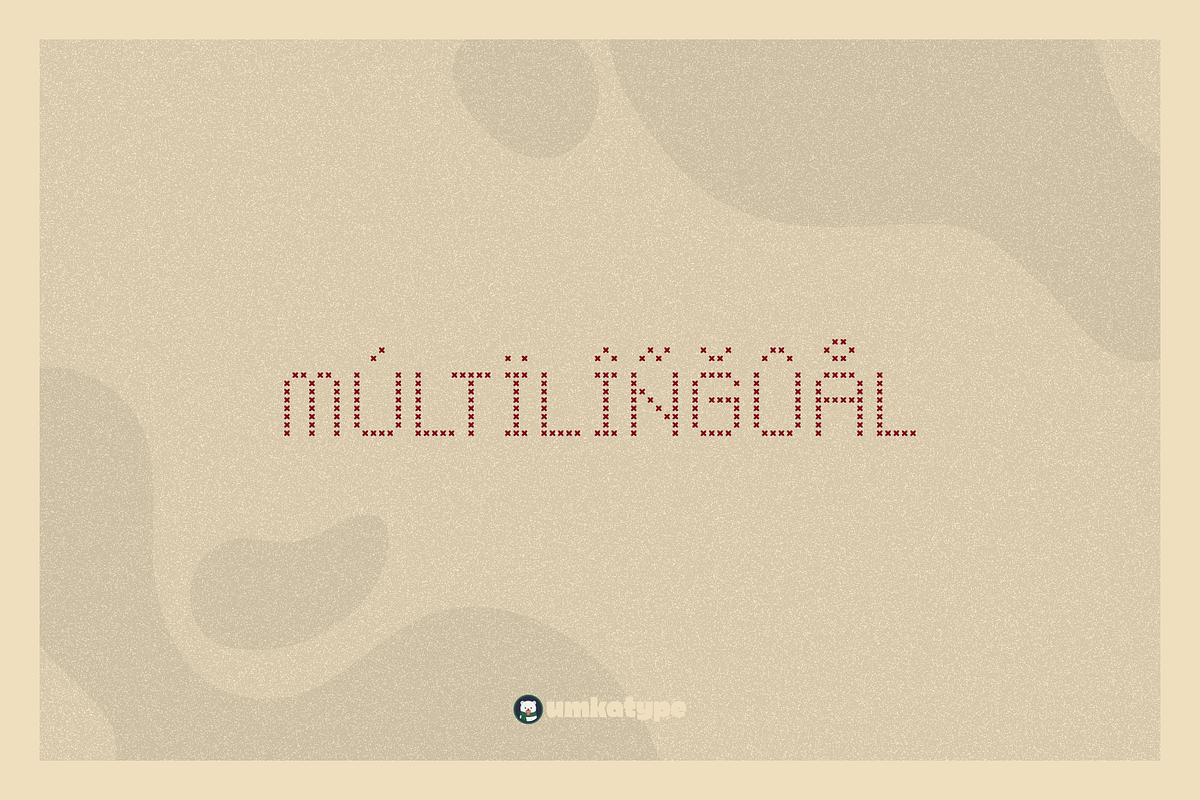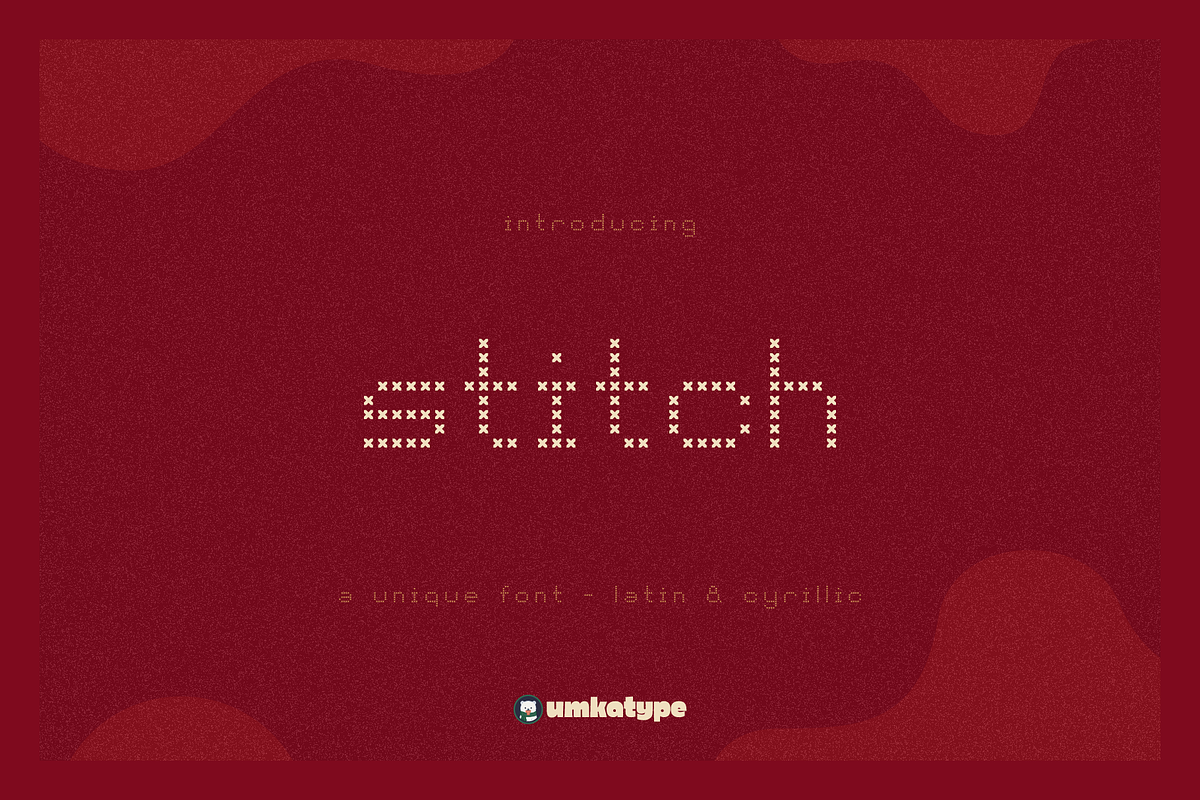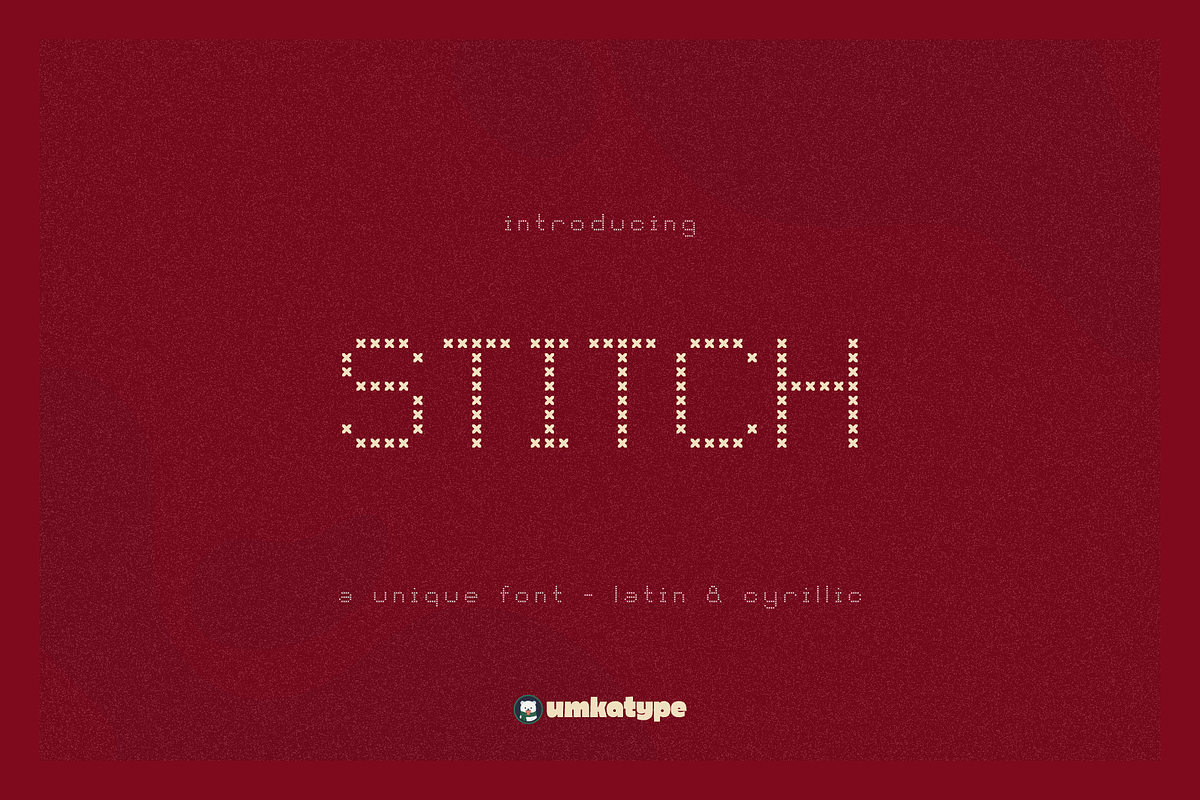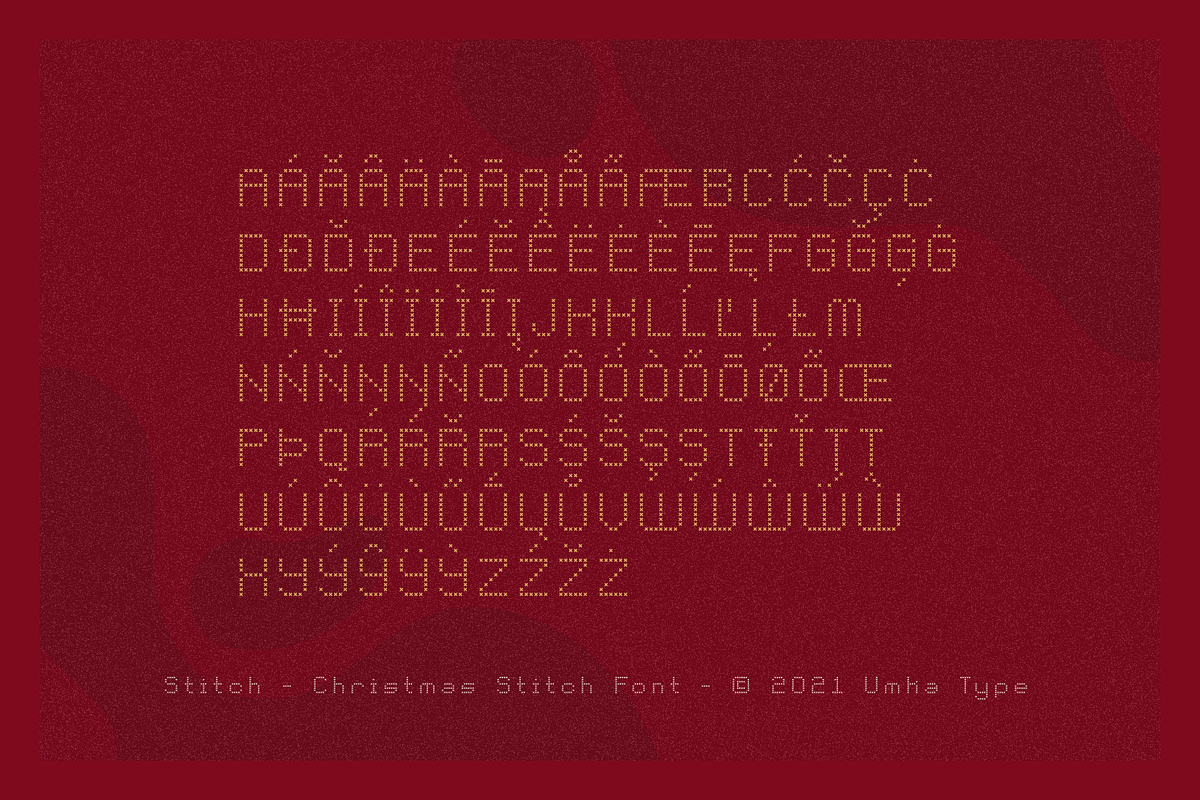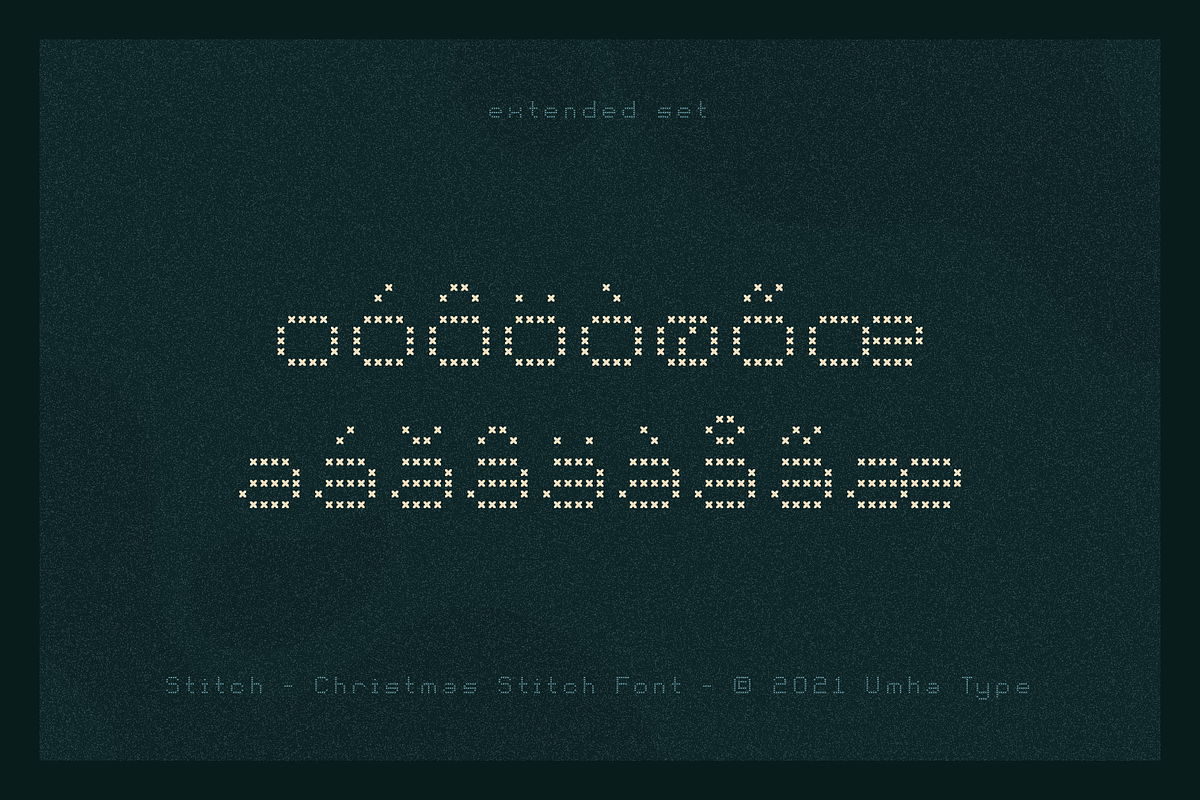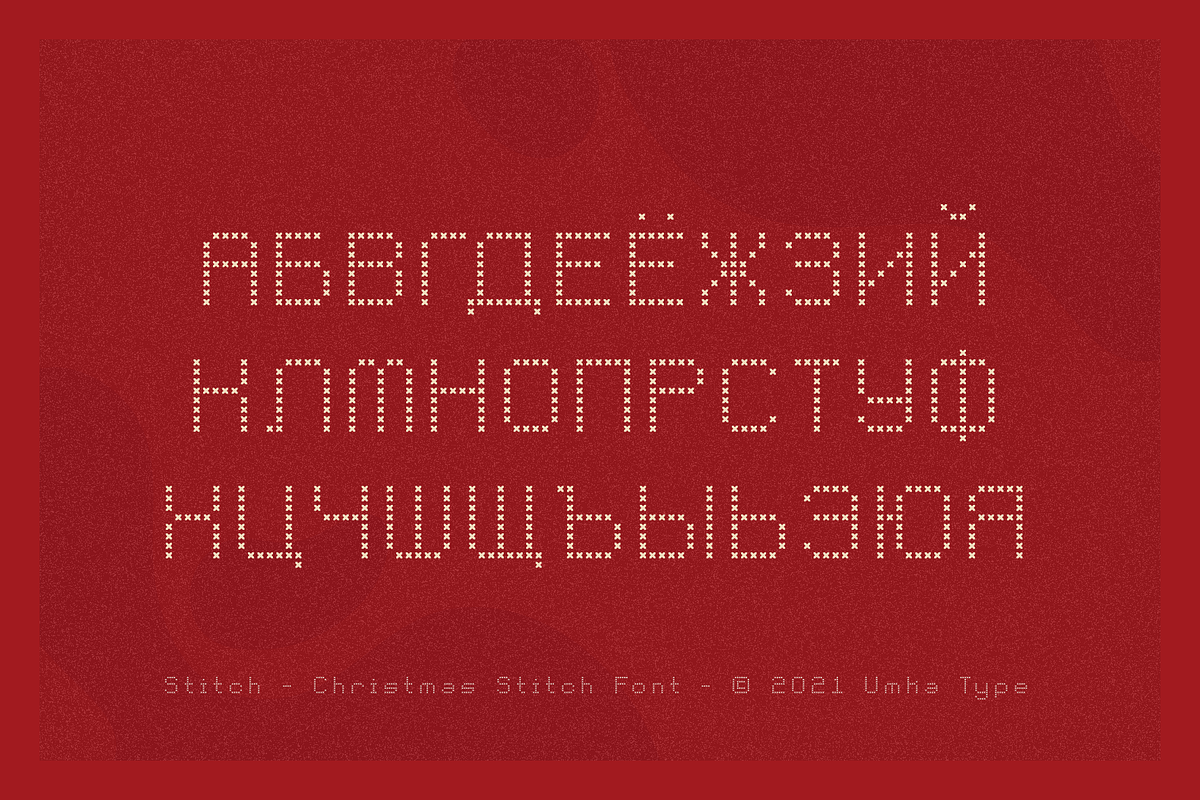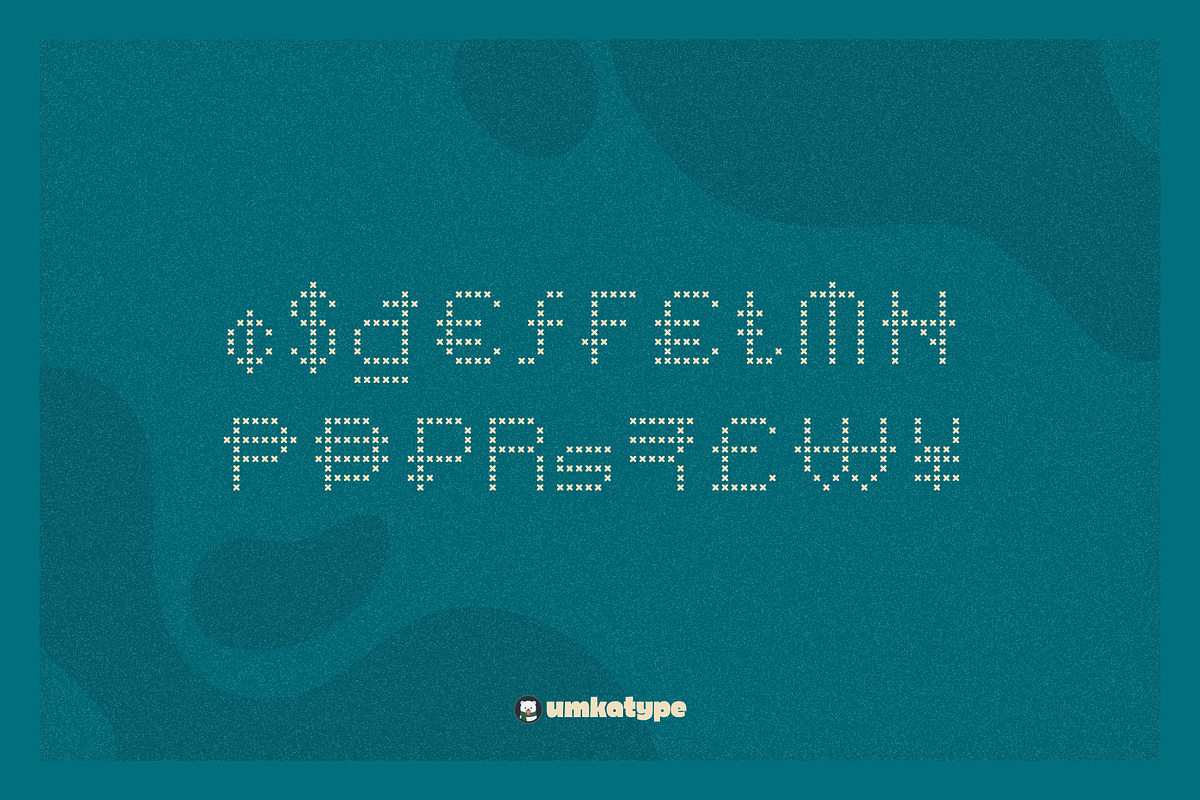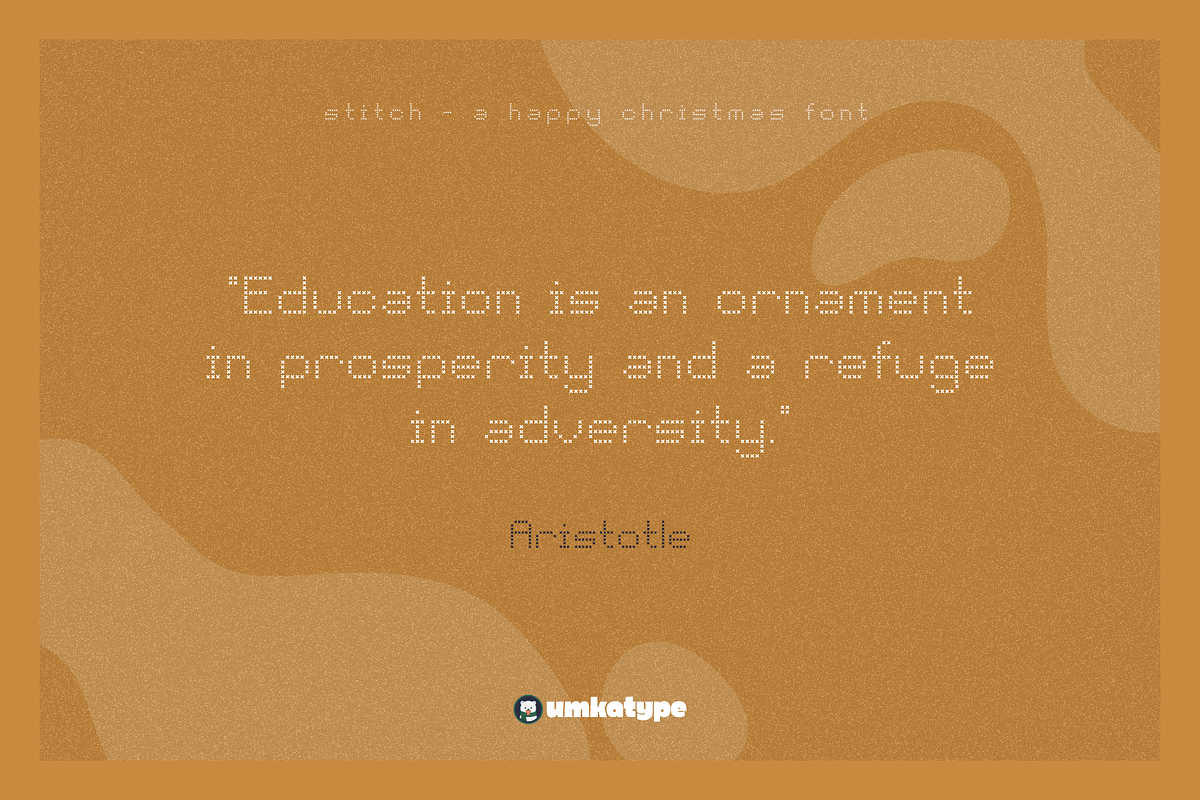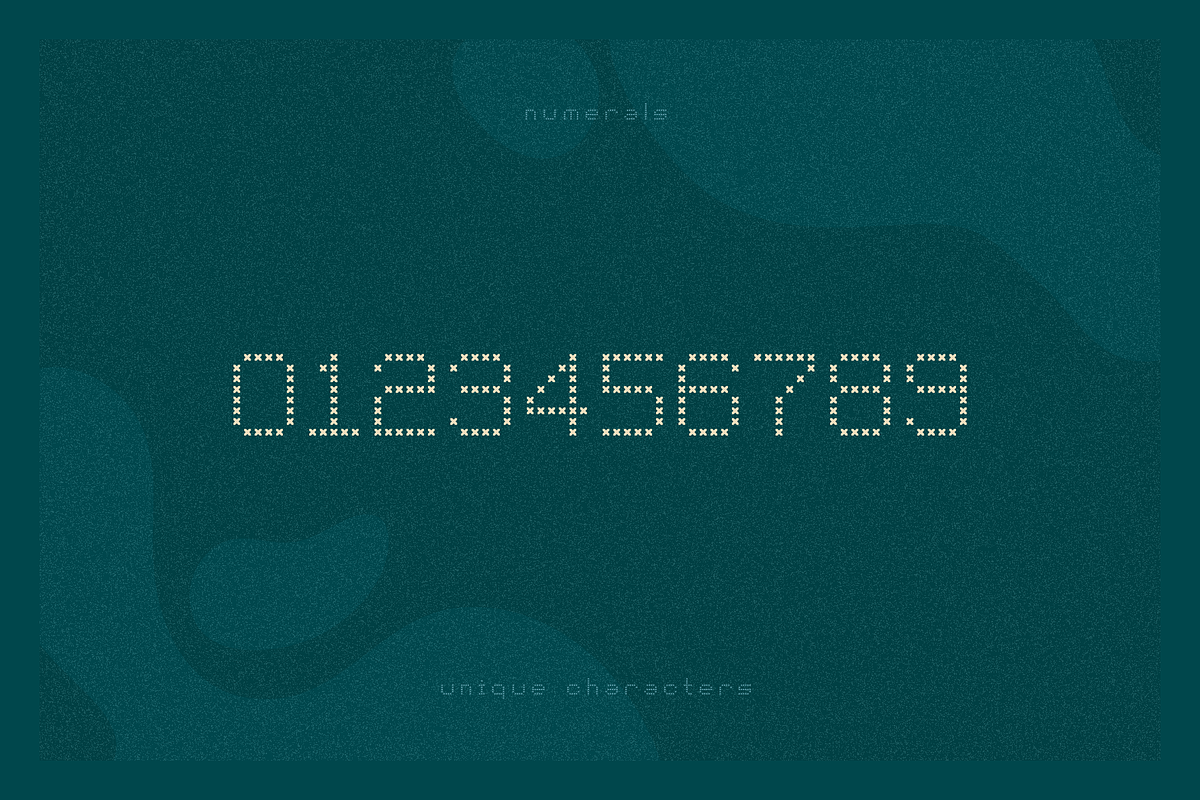
Stitch Pixel Game Font
Stitch - A Display Font
- Stitch is a carefully crafted font.
- Multilingual: It has Extended Latin and Extended Cyrillic letters.
Stitch created for posters, games, web design, branding and social media works.
Language support:
Afrikaans • Albanian • Asu • Basque • Belarusian • Bemba • Bena • Bosnian • Bulgarian • Catalan • Cebuano • Chechen • Chiga • Colognian • Cornish • Corsican • Croatian • Czech • Danish • English • Erzya • Estonian • Faroese • Filipino • Finnish • French • Friulian • Galician • Ganda • German • Gusii • Hungarian • Icelandic • Ido • Inari Sami • Indonesian • Interlingua • Irish • Italian • Javanese • Jju • Jola-Fonyi • Kabuverdianu • Kalaallisut • Kalenjin • Kazakh • Kinyarwanda • Kurdish • Kyrgyz • Latvian • Lithuanian • Lojban • Low German • Lower Sorbian • Luo • Luxembourgish • Luyia • Macedonian • Machame • Makhuwa-Meetto • Makonde • Malagasy • Malay • Maltese • Manx • Māori • Mongolian • Morisyen • North Ndebele • Northern Sami • Northern Sotho • Norwegian Bokmål • Norwegian Nynorsk • Nyanja • Nyankole • Occitan • Oromo • Polish • Portuguese • Romanian • Romansh • Rombo • Rundi • Russian • Rwa • Samburu • Sango • Sangu • Sardinian • Scottish Gaelic • Sena • Serbian • Shambala • Shona • Slovak • Slovenian • Soga • Somali • South Ndebele • Southern Sotho • Spanish • Sundanese • Swahili • Swati • Swedish • Swiss German • Taita • Tajik • Taroko • Tatar • Teso • Tsonga • Tswana • Turkmen • Upper Sorbian • Vunjo • Walloon • Welsh • Wolof • Xhosa • Zulu